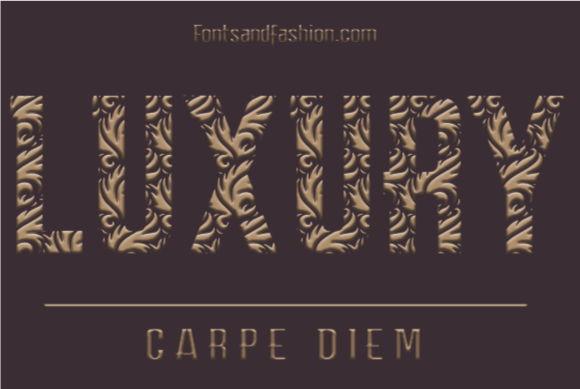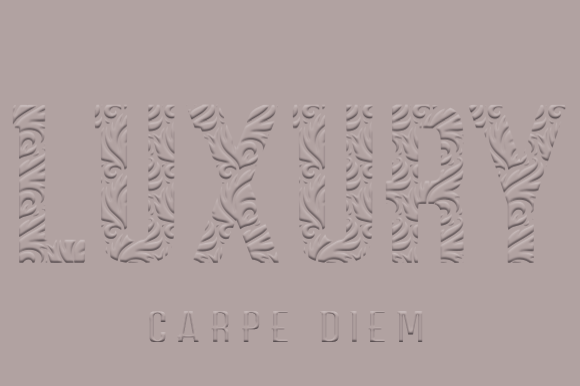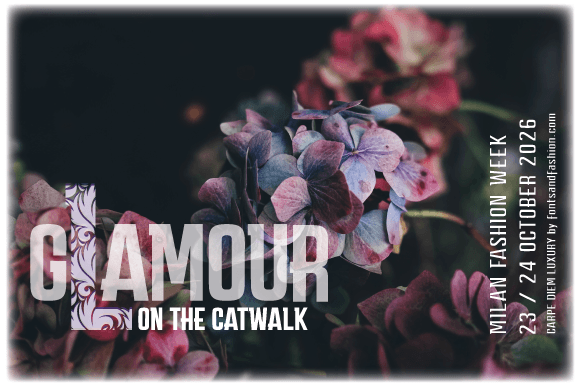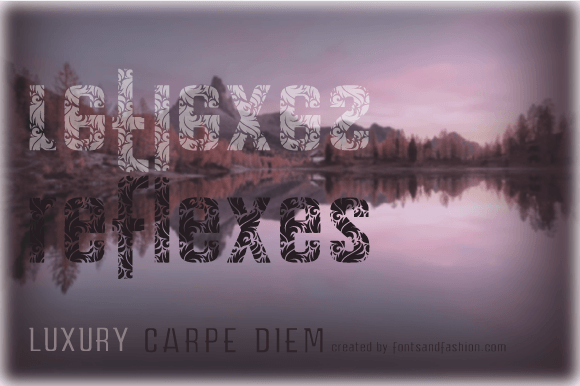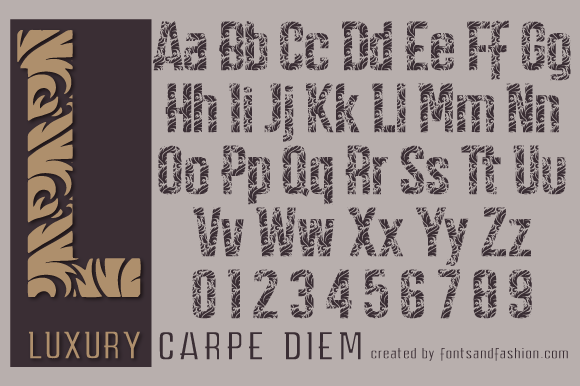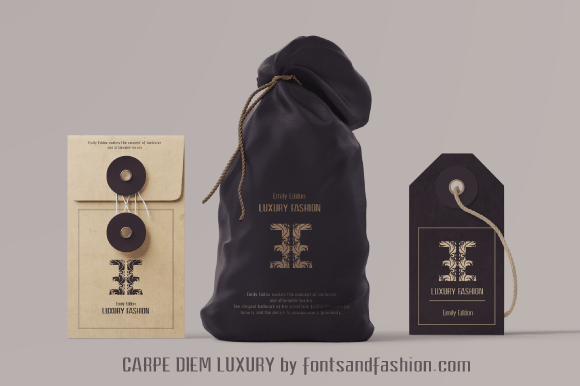
Unlock Timeless Elegance with Carpe Diem Luxury Font
As the seasons change and a new year unfolds, designers and crafters are constantly on the lookout for typography that can add a touch of sophistication and luxury to their projects. If you’re seeking a font that embodies elegance and refinement, look no further than the Carpe Diem Luxury Font. This stunning decorative font is poised to become an indispensable asset in your font library, capable of elevating any creation to new heights of style and poise.
The Essence of Luxury Typography
Luxury typography is more than just a collection of letters; it’s an expression of style, an evocation of emotion, and a reflection of the brand’s or project’s personality. The right font can transport your audience to a world of opulence and grandeur, making them feel like they’re part of something exclusive and high-end. The Carpe Diem Luxury Font is crafted with this very purpose in mind, offering a unique blend of classic sophistication and modern flair.
Why Carpe Diem Stands Out
So, what makes the Carpe Diem Luxury Font stand out from the myriad of decorative fonts available? Here are a few reasons why it’s an exceptional choice for designers and crafters:
- Versatility: Whether you’re working on a luxury brand’s logo, an elegant wedding invitation, or a high-end product catalog, Carpe Diem adapts seamlessly to any project, adding a layer of sophistication that’s hard to achieve with standard fonts.
- Elegant Design: The font features intricate details and a refined aesthetic that captures the essence of luxury. Its elegant lines and curves make it perfect for projects where making a statement is key.
- Readability: Despite its decorative nature, Carpe Diem maintains a high level of readability, ensuring that your message is conveyed clearly and effectively, without compromising on style.
- Timeless Appeal: Unlike trends that fade with time, Carpe Diem’s classic design ensures it remains relevant and stylish for years to come, making it a valuable long-term investment for your font library.
Applications of Carpe Diem Luxury Font
The versatility of the Carpe Diem Luxury Font means it can be used across a wide range of projects, including:
- Branding and Logos: For luxury brands looking to make a lasting impression, Carpe Diem offers a level of sophistication that’s hard to match.
- Wedding and Event Stationery: Add a touch of elegance to wedding invitations, menus, and other event materials with this beautiful font.
- Packaging: Elevate product packaging to convey luxury and exclusivity, perfect for high-end goods.
- Marketing Materials: Use Carpe Diem in brochures, catalogs, and advertisements to give your marketing materials a premium feel.
Incorporating Carpe Diem into Your Projects
| Font Name | Carpe Diem Luxury Font |
| Author | Fontsandfashion |
The Carpe Diem Luxury Font is more than just a decorative font; it’s a tool for transforming your designs into statements of elegance and sophistication. With its timeless appeal, versatility, and elegant design, it’s an asset that will enhance your font library and open up new possibilities for your creative projects. Whether you’re a professional designer or a skilled crafter, Carpe Diem is your gateway to creating visually stunning and luxurious designs that leave a lasting impression.
Embrace the beauty of luxury typography and let Carpe Diem take your projects to new heights of style and sophistication. Make the most of this exquisite font and watch your designs transform into masterpieces of elegance and refinement.